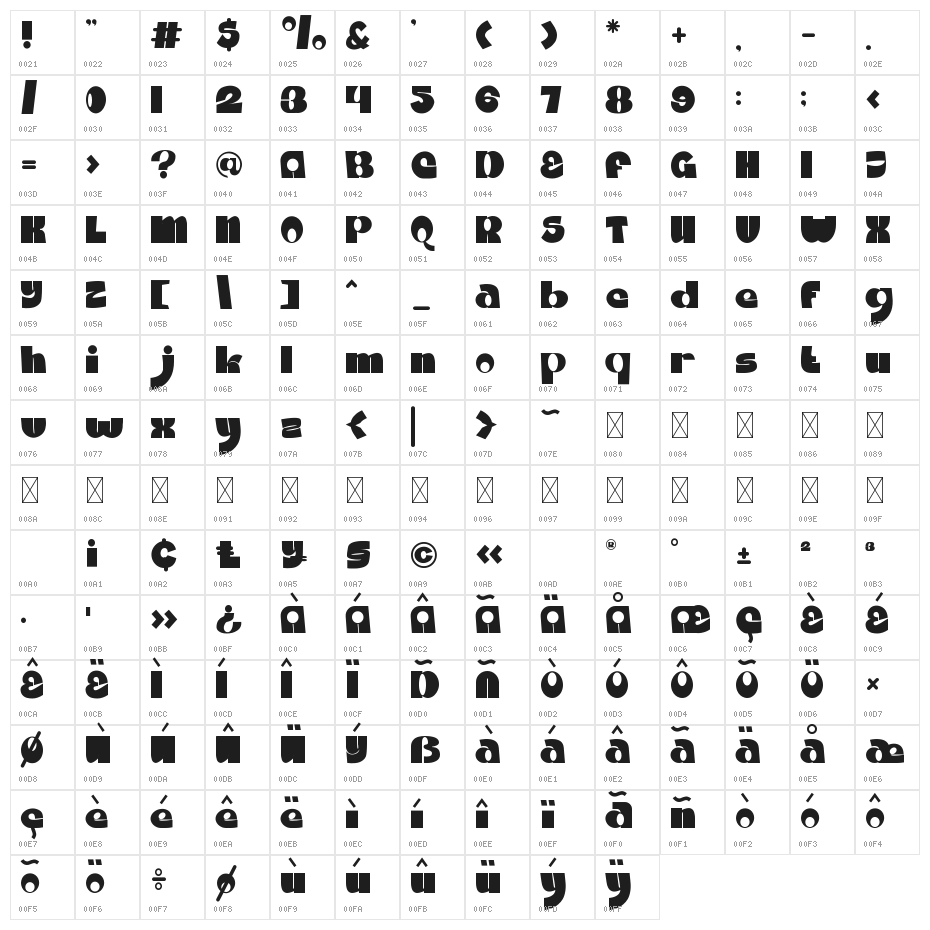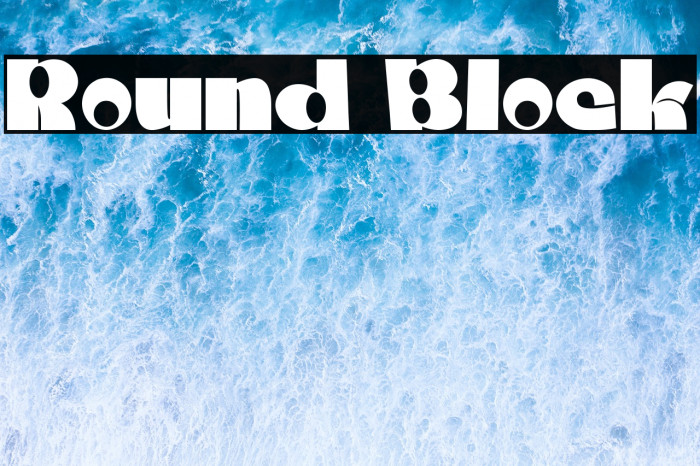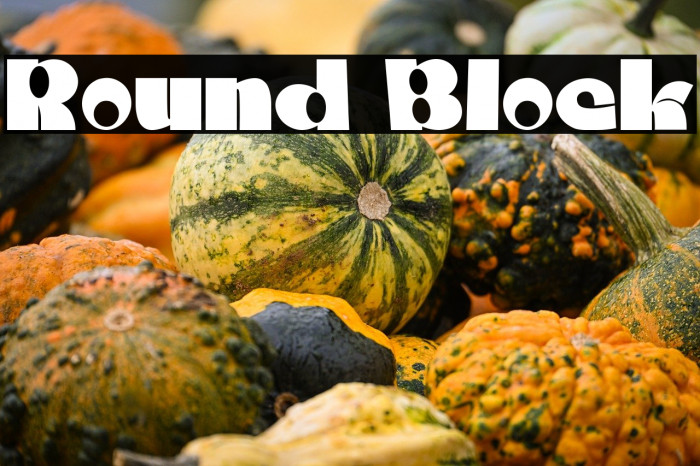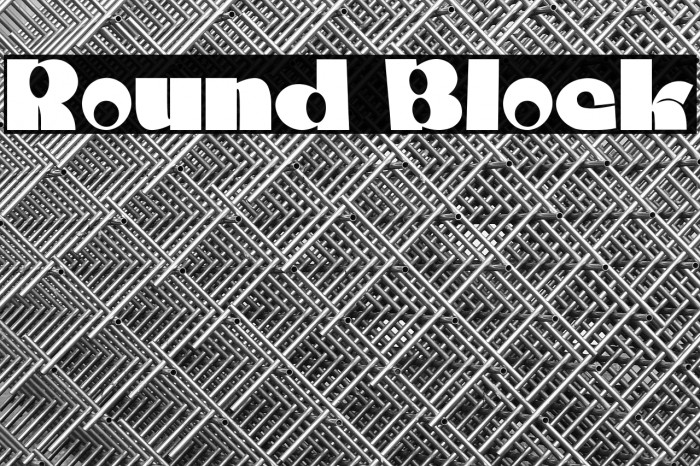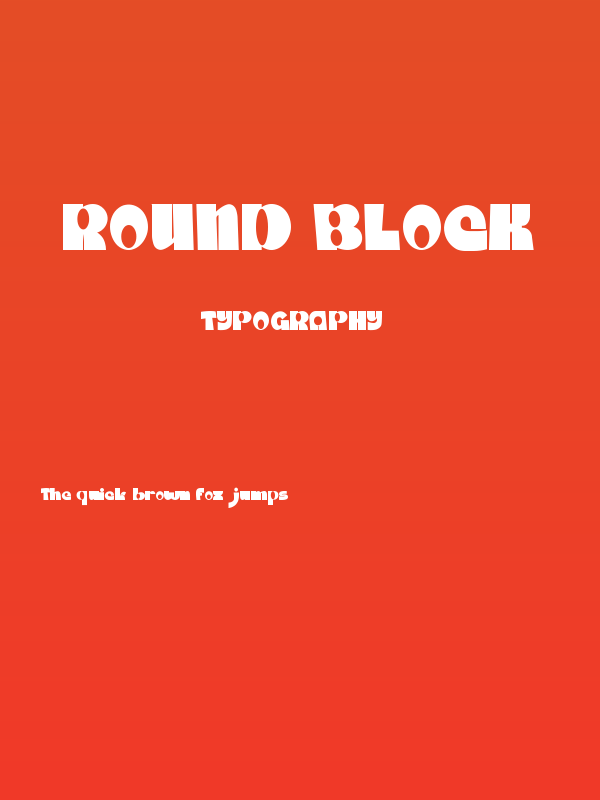
Round Block Font
Round Block Description
This font features bold, rounded characters with a blocky appearance, creating a playful yet strong visual impact. The letters are designed with a consistent thickness, giving them a uniform and cohesive look. The rounded edges soften the overall aesthetic, making it approachable and friendly. The uppercase and lowercase letters maintain a similar width, ensuring readability and balance. Numbers and special characters are crafted with the same boldness, ensuring they stand out effectively. This font's unique style makes it suitable for eye-catching designs.
| Overall Style | Playful, Modern |
| Proposed Projects | Ideal for posters, logos, children's books, and playful branding projects. |